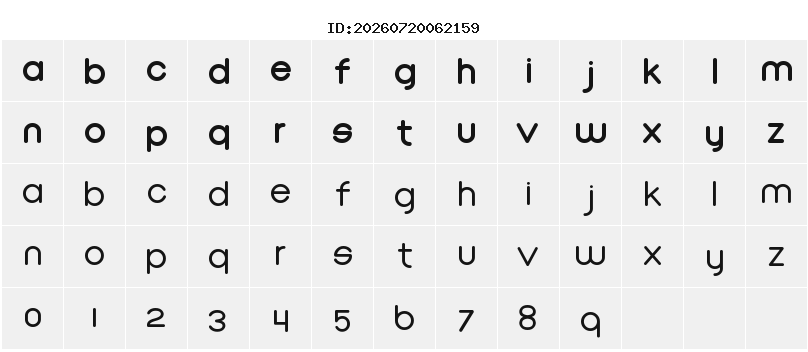
• Font Name: EOne
• Full Font Name: EOne
About EOne.ttf
EOne.ttf is a modern, elegant sans-serif font designed for ultimate readability and visual harmony. Perfect for branding, headlines, web design, and print materials.